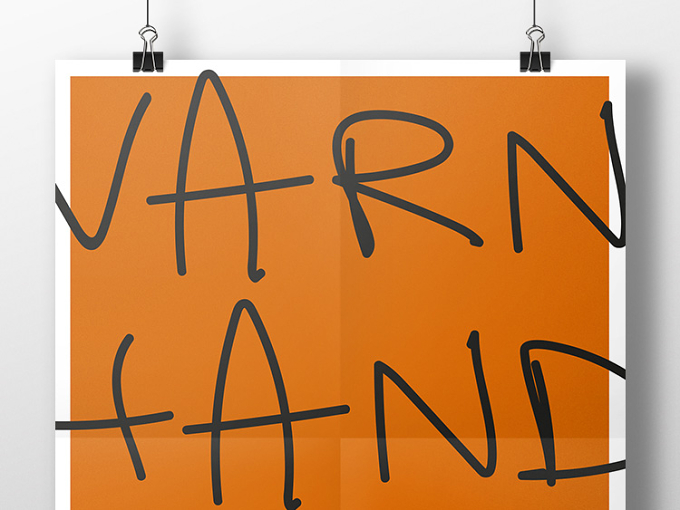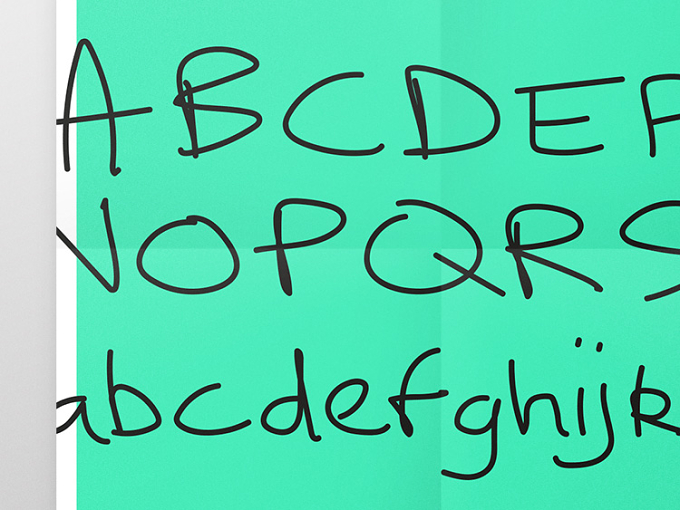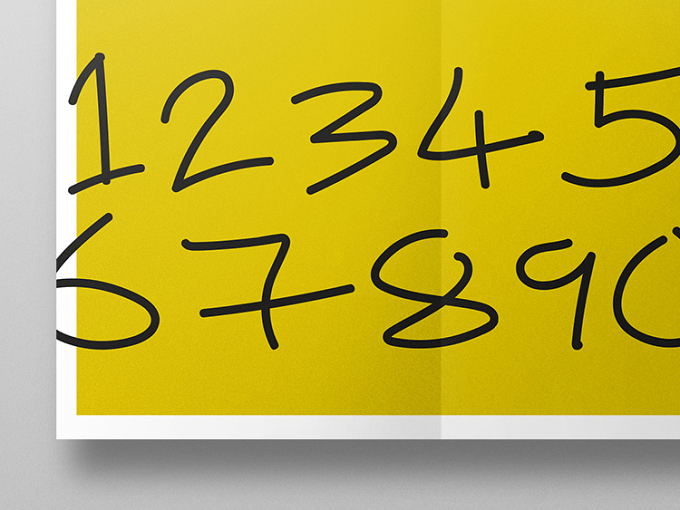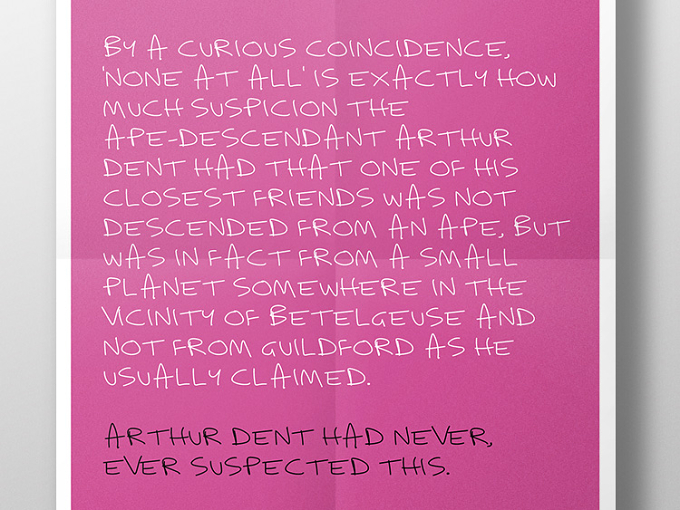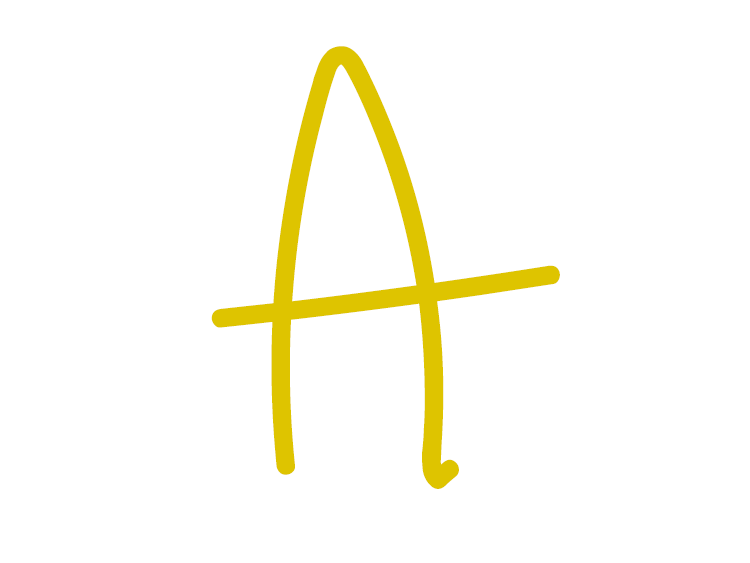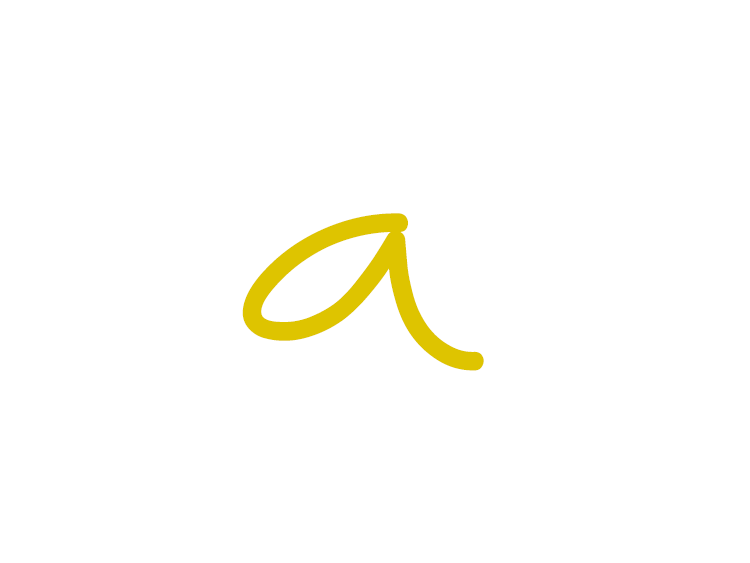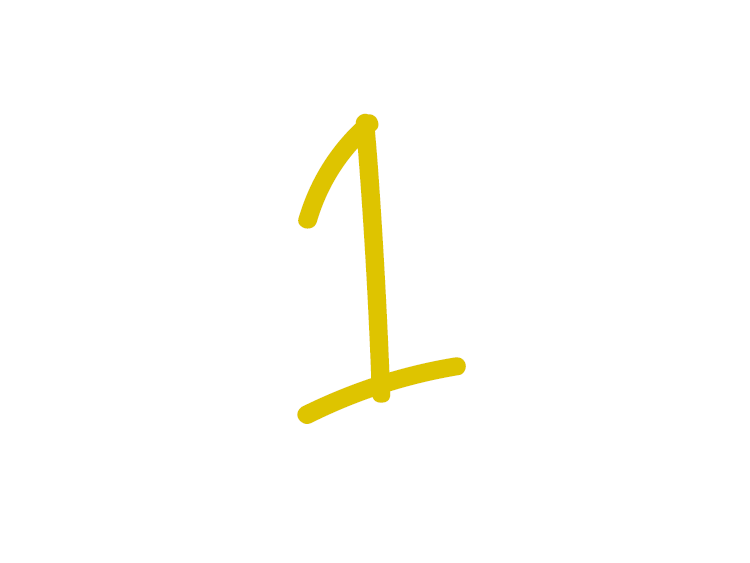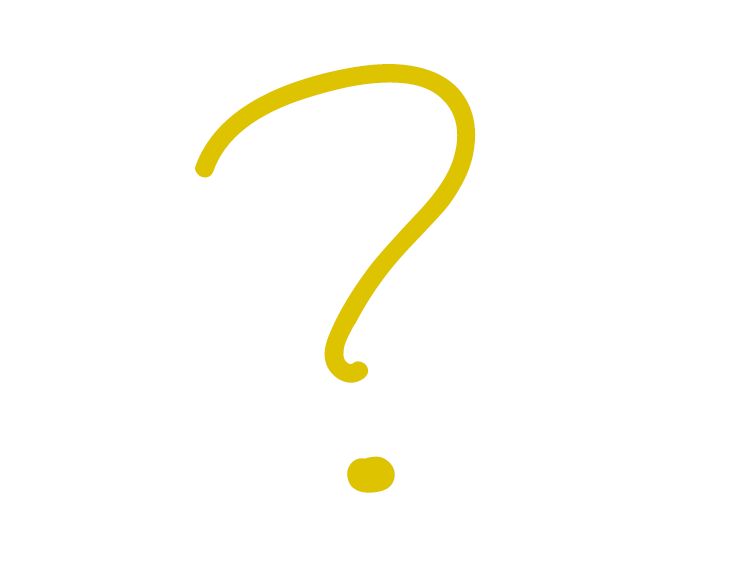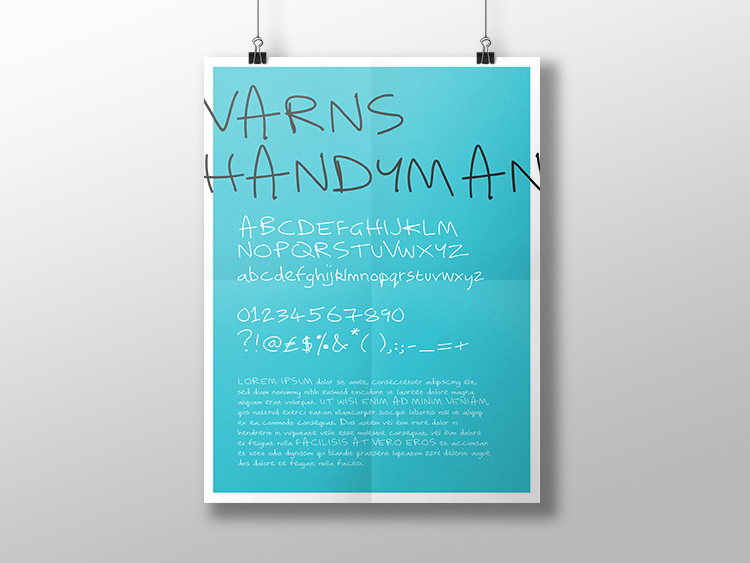
Varns Handyman is the first font designed and built by Dan Varns, the owner and Creative Director of Deliciously Creative, using his hand writing as a base and inspiration.
Dan felt there was a need for a handwritten font that expressed the natural feel and flow other fonts couldn’t offer.